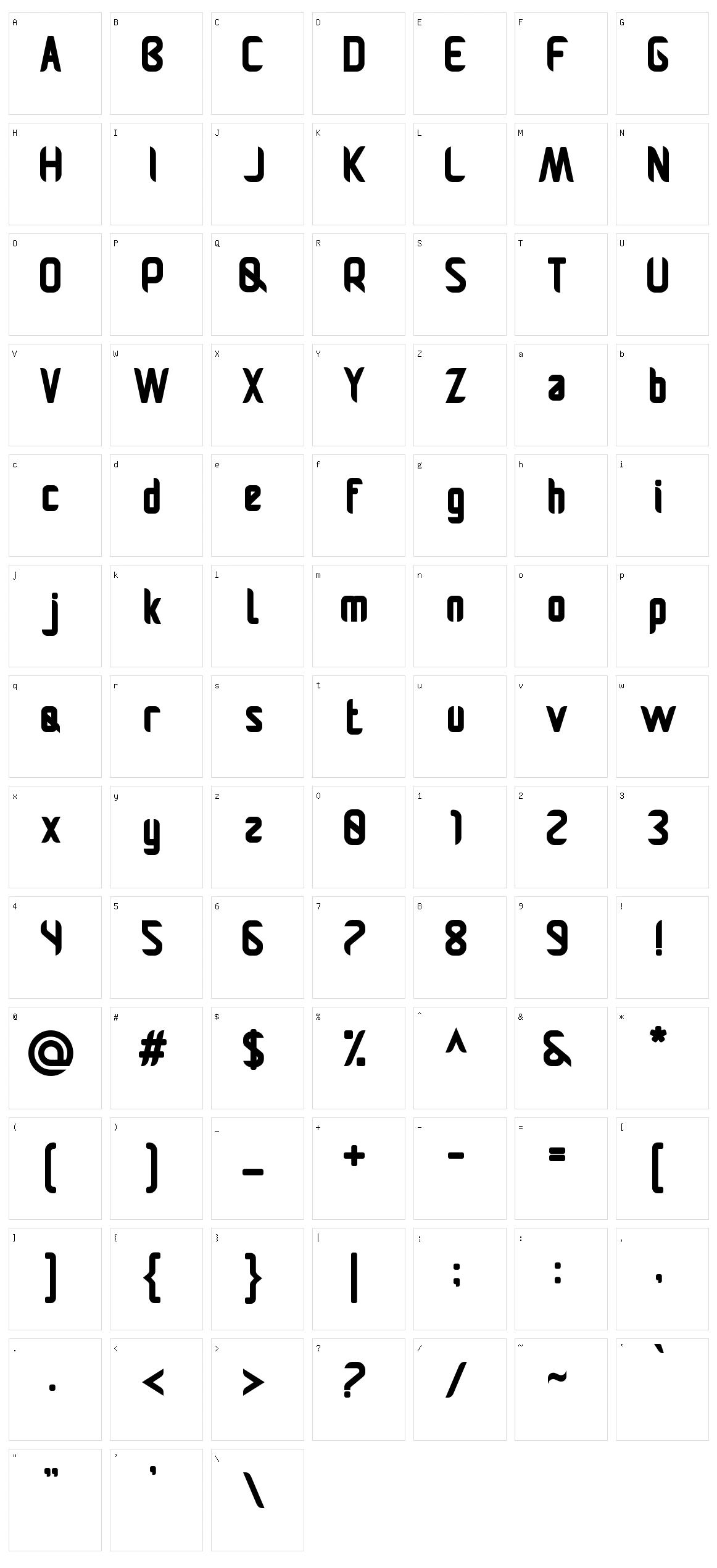
The free font Pamekasan is carefully designed by Mukhlis Risani, showcasing a thoughtful balance of creativity and usability and falls under the Sans serif font style. When you download the ZIP file, it contains only 1316 KB of font files, making it lightweight and quick to download. Please review the license details below to understand permitted usage and distribution rights. If license information is not available, we recommend using this font for personal projects only or contacting the author directly for commercial usage permissions.